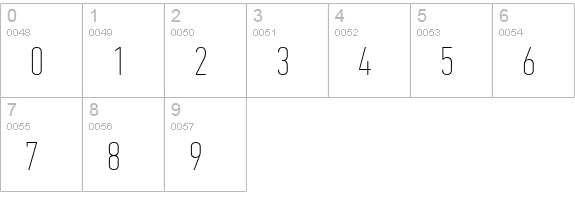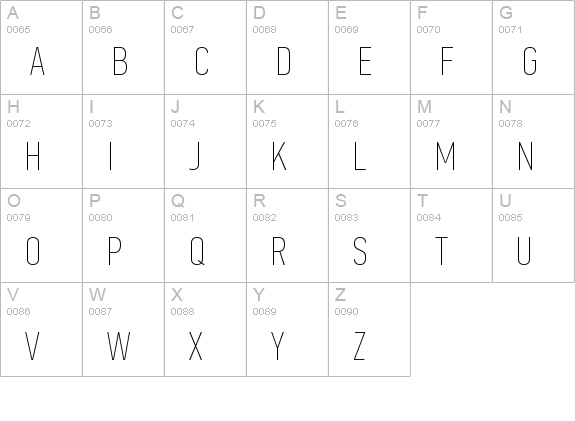
PFDinTextCompPro-XThin Font Details
PFDinTextCompPro-XThin font is a sleek and modern typeface that exudes elegance and sophistication. With its ultra-thin strokes and clean lines, this font is perfect for creating a minimalist and contemporary look in your design projects. The delicate yet impactful appearance of PFDinTextCompPro-XThin font makes it an ideal choice for branding, editorial design, and more. What's even better is that PFDinTextCompPro-XThin font is available for free download at FontsMarket.com. You can easily access this stylish font and incorporate it into your creative work without any cost. Don't miss out on the opportunity to enhance your designs with the refined aesthetic of PFDinTextCompPro-XThin font, now freely available for you to enjoy.